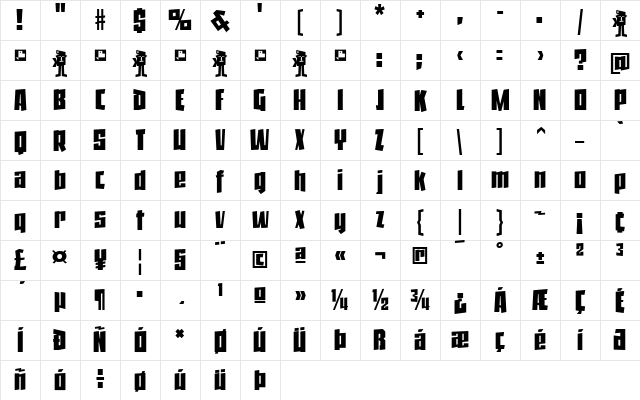
Jack Stanislav Regular
Foundry: deFharo
Designer: Fernando Haro
Design Context for Jack Stanislav
Jack Stanislav is a composed and adaptable typeface that performs quietly and consistently across a wide range of design contexts.